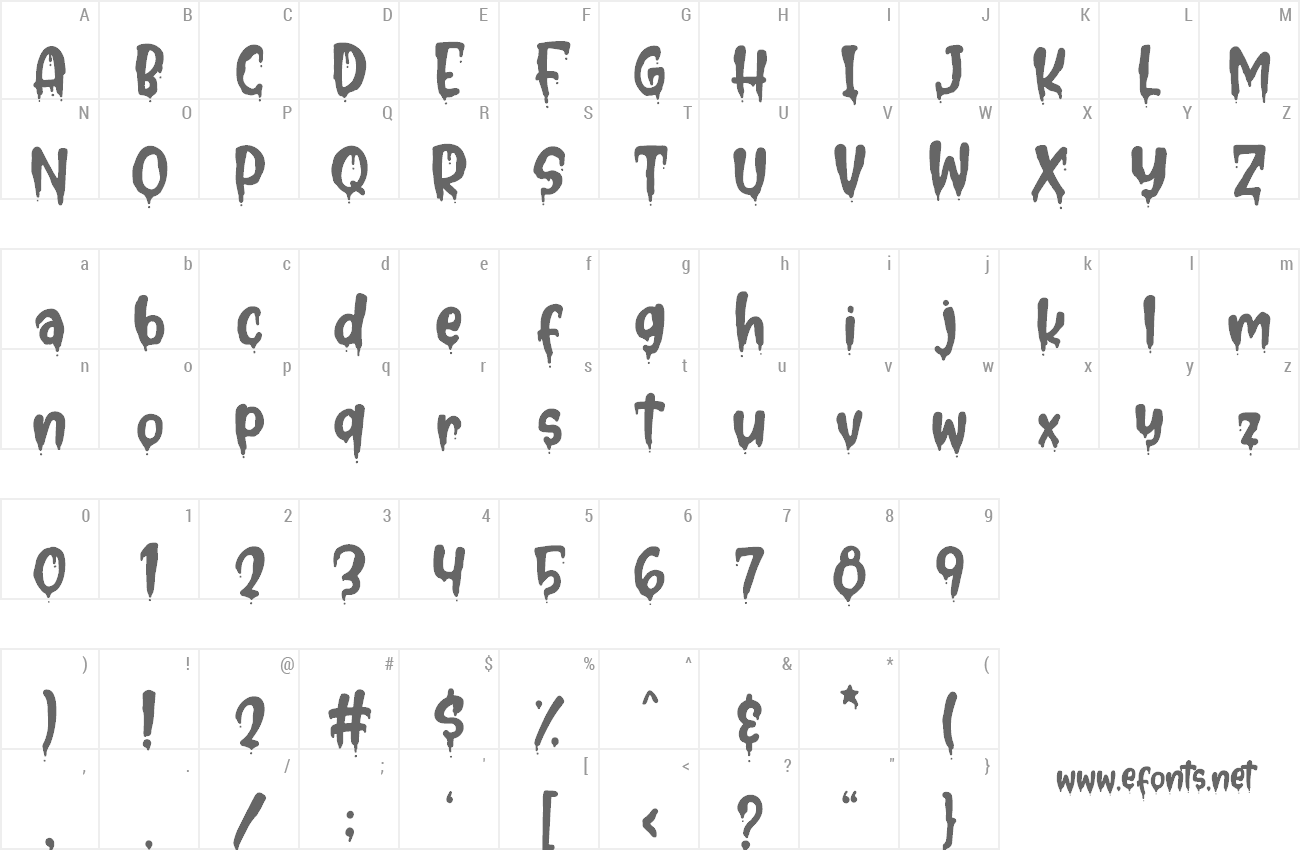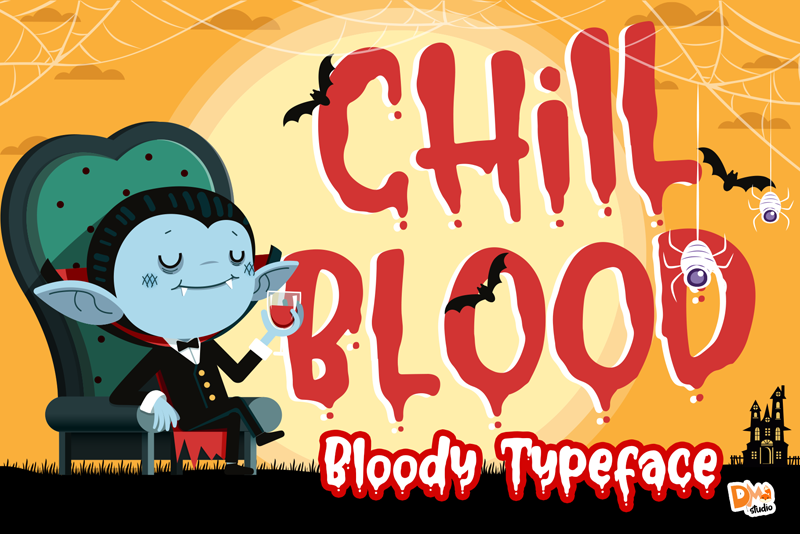
Preview and download Chill Blood Font. Created by DM Studio- Dimas Prasetyo in Fancy Horror styles with Free for personal use license.
This enchanting font will turn any creative idea into a true standout. Perfect fit for all of your logos, branding, social media, etc. Get creative with its unique playfulness, and use it to brighten up any crafting project! Please note that this demo font is for personal use only.!! If you want to use this font for commercial use, you need to purchase a commercial license here: https://www.creativefabrica.com/product/chill-blood/ref/161900/ Get it now and take your creativity to new heights with this font! [SALE] [SALE] [SALE] Save more money by purchasing our Bundles !! Halloween Bundle : https://www.creativefabrica.com/product/mega-spooky-halloween-crafty-bundle/ref/161900/ Crafty Bundle : https://www.creativefabrica.com/product/crafty-font-bundle/ref/161900/ |